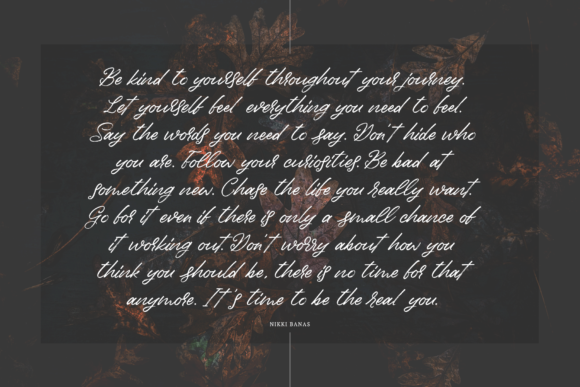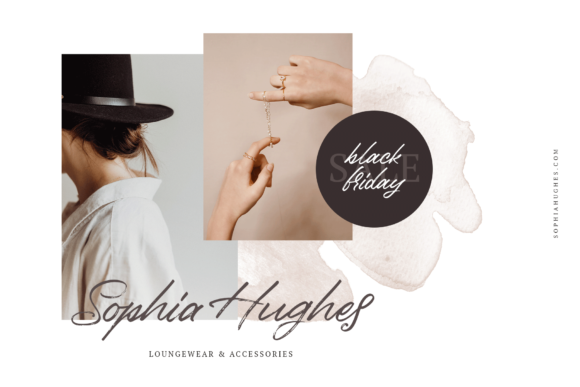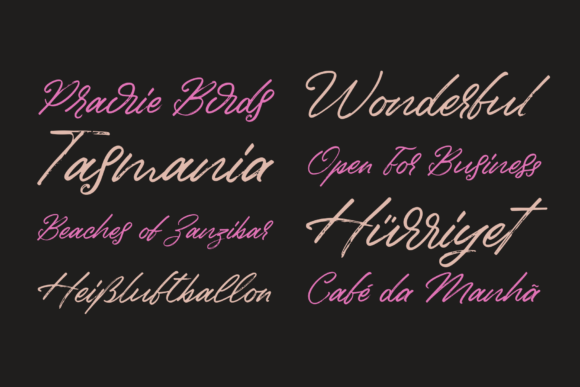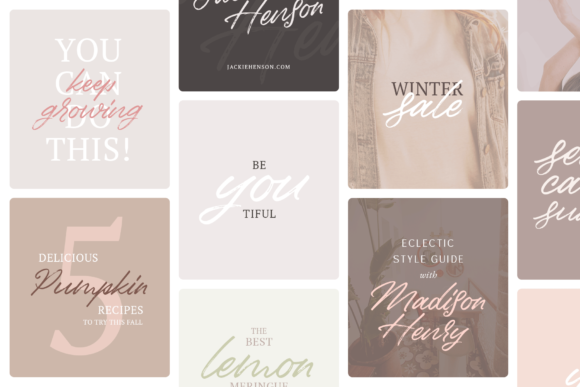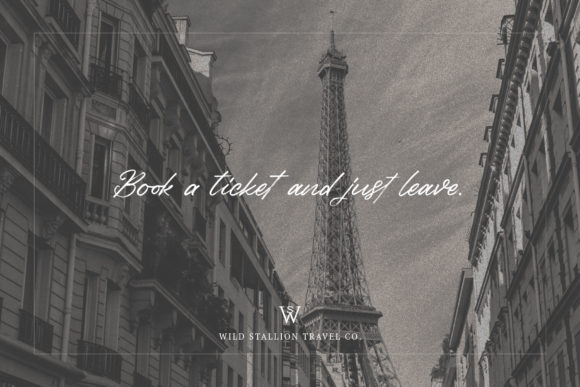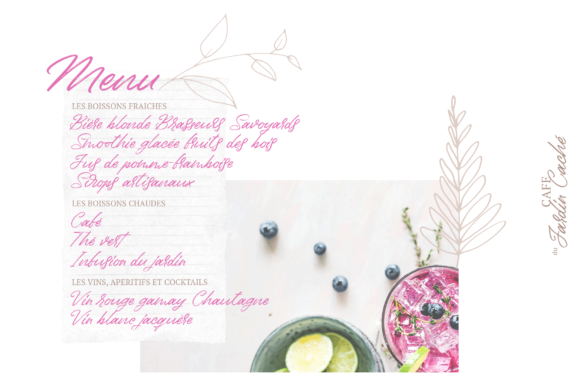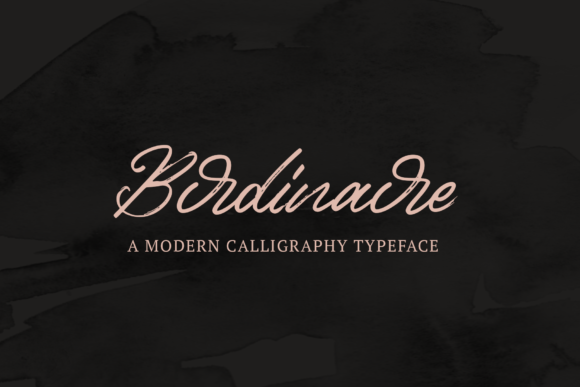
Birdinaire Font: Elevate Your Designs with Vintage Elegance
Are you a designer or crafter looking for a font that exudes vintage charm and sophistication? Look no further than Birdinaire Font, a beautiful and well-balanced script font that’s perfect for fashion branding, editorial designs, and more. In this article, we’ll dive into the features and benefits of Birdinaire Font, and explore how it can elevate your designs to the next level.
A Beautifully Crafted Font
Birdinaire Font is a stunning example of a vintage-styled script font. Its smooth curves and flowing lines evoke a sense of elegance and refinement, making it perfect for designs that require a touch of sophistication. Whether you’re creating a fashion brand, designing an editorial layout, or crafting a stylish invitation, Birdinaire Font is sure to impress.
Birdinaire Font Example
One of the standout features of Birdinaire Font is its PUA (Private Use Area) encoding. This means that you can access all glyphs and swashes with ease, giving you complete creative control over your designs. With PUA encoding, you can effortlessly swap out characters and swashes to create unique and eye-catching text arrangements.
Perfect for Fashion Branding and Editorial Designs
Birdinaire Font is specifically designed with fashion branding and editorial designs in mind. Its elegant curves and sophisticated feel make it perfect for:
• Fashion brand logos and labels
• Editorial layouts and typography
• Invitations and event branding
• Packaging and product design
• Stationery and paper goods
Why Choose Birdinaire Font?
So why choose Birdinaire Font over other script fonts on the market? Here are just a few reasons:
• Unique and distinctive: Birdinaire Font has a one-of-a-kind feel that sets it apart from other fonts.
• Elegant and sophisticated: Its smooth curves and flowing lines evoke a sense of refinement and luxury.
• PUA encoded: Easy access to all glyphs and swashes for complete creative control.
• Versatile: Perfect for a wide range of design applications, from fashion branding to editorial layouts.
Tips for Using Birdinaire Font
To get the most out of Birdinaire Font, here are a few tips to keep in mind:
• Use it sparingly: Birdinaire Font is a statement font, so use it sparingly to make a big impact.
• Experiment with swashes: Take advantage of the PUA encoding to experiment with different swashes and glyphs.
• Pair it with contrasting fonts: Pair Birdinaire Font with contrasting fonts to create visual interest and hierarchy.
Birdinaire Font is a stunning and versatile script font that’s perfect for designers and crafters looking to add a touch of vintage elegance to their designs. With its smooth curves, PUA encoding, and sophisticated feel, it’s the perfect choice for fashion branding, editorial designs, and more. So why wait? Download Birdinaire Font today and take your designs to the next level!